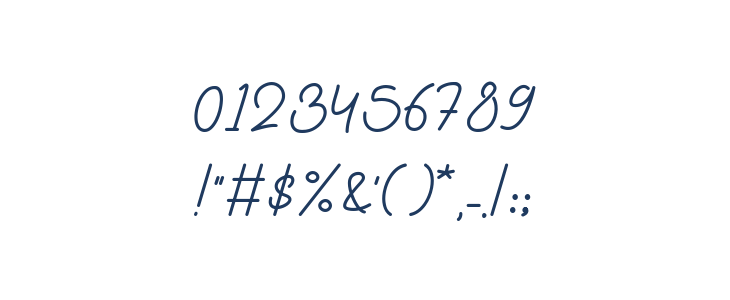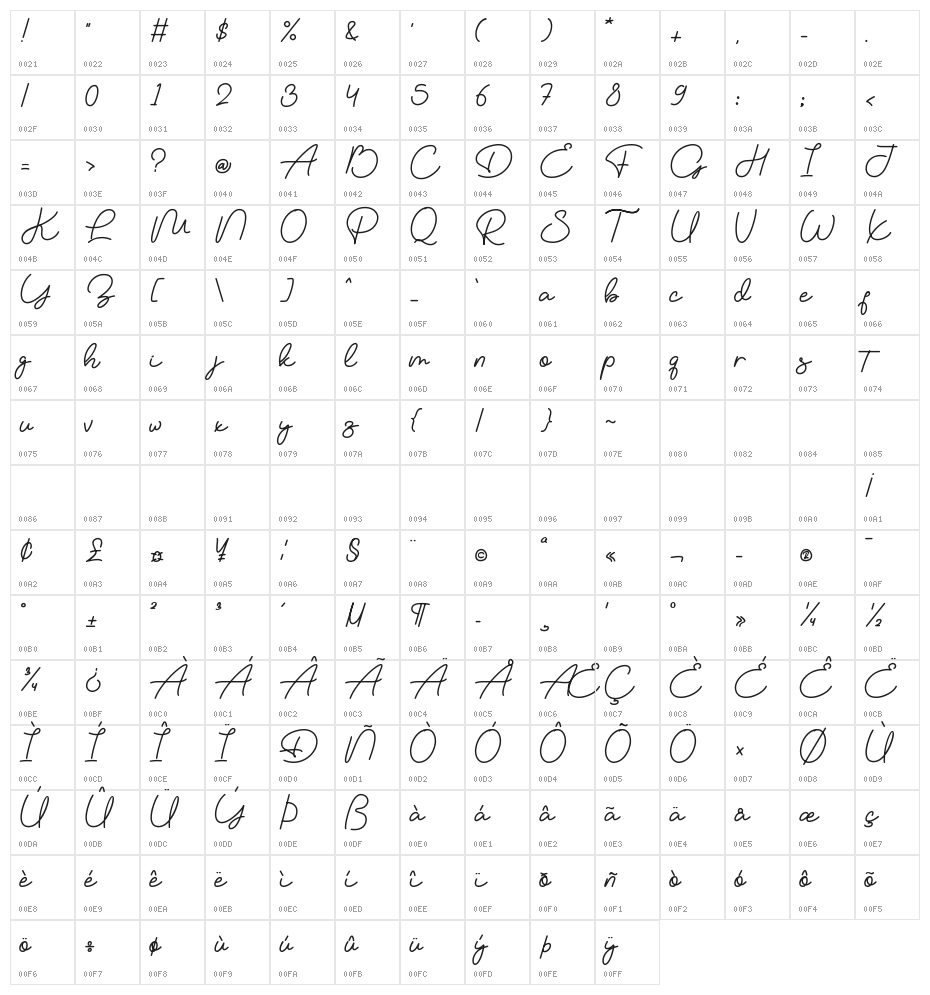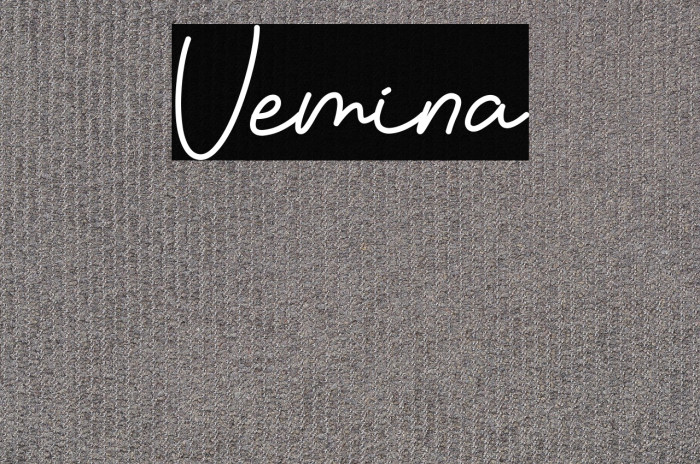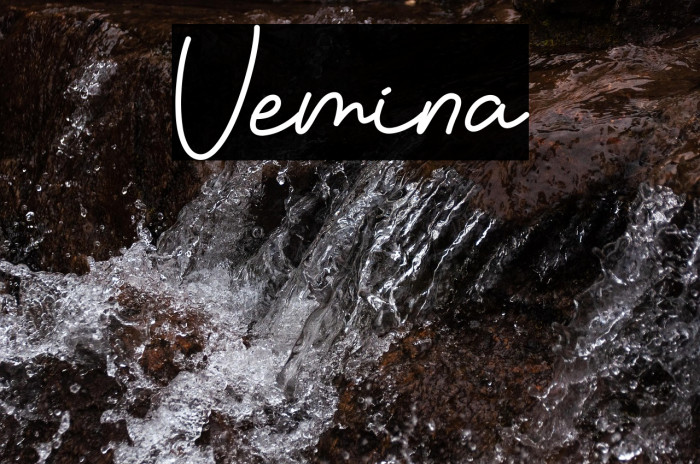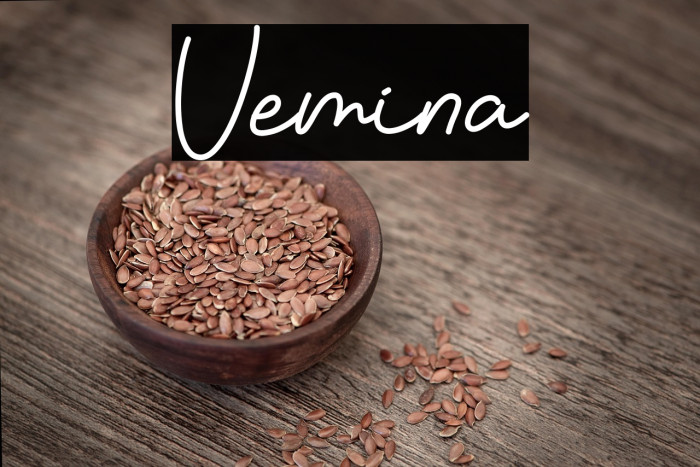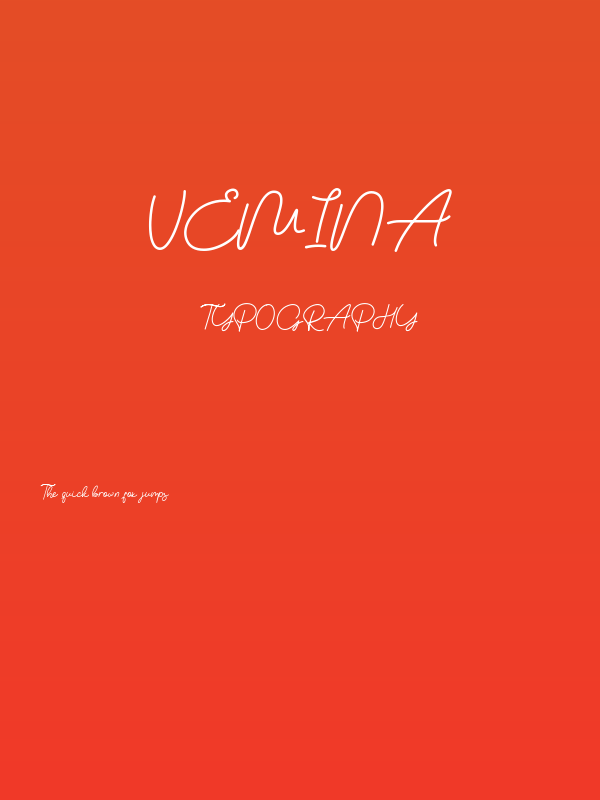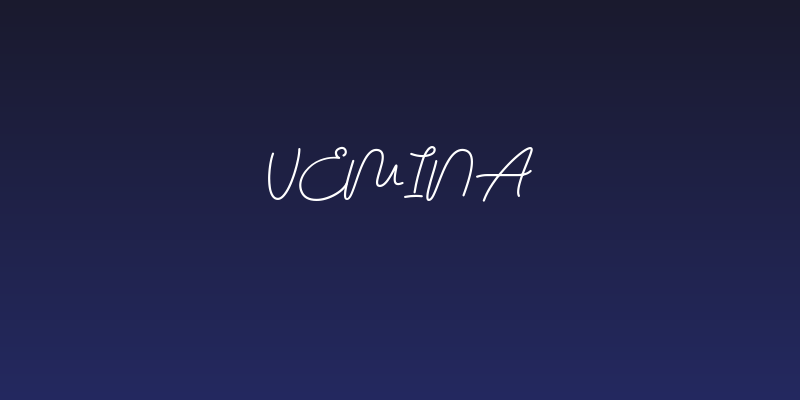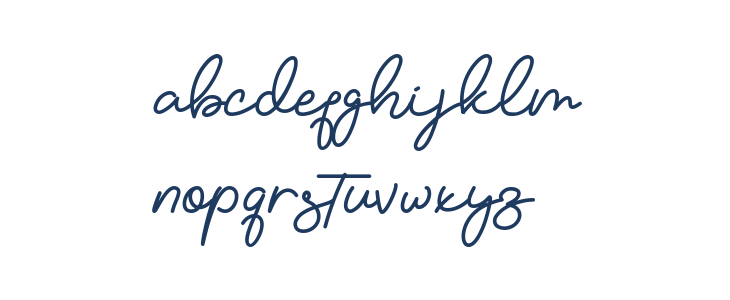
Vemina Font
Vemina Description
This font features a flowing, cursive style that mimics elegant handwriting. The uppercase letters are gracefully connected, giving a sense of fluidity and motion. The lowercase letters maintain a consistent style, with smooth curves and loops that enhance readability while retaining a personal touch. Numbers and special characters are designed to match the overall aesthetic, ensuring a cohesive look across all text. The font's design is both sophisticated and approachable, making it suitable for a variety of applications where a personal or artistic touch is desired.
| Overall Style | Elegant, Handwritten |
| Proposed Projects | Ideal for wedding invitations, greeting cards, personal branding, and artistic projects. |